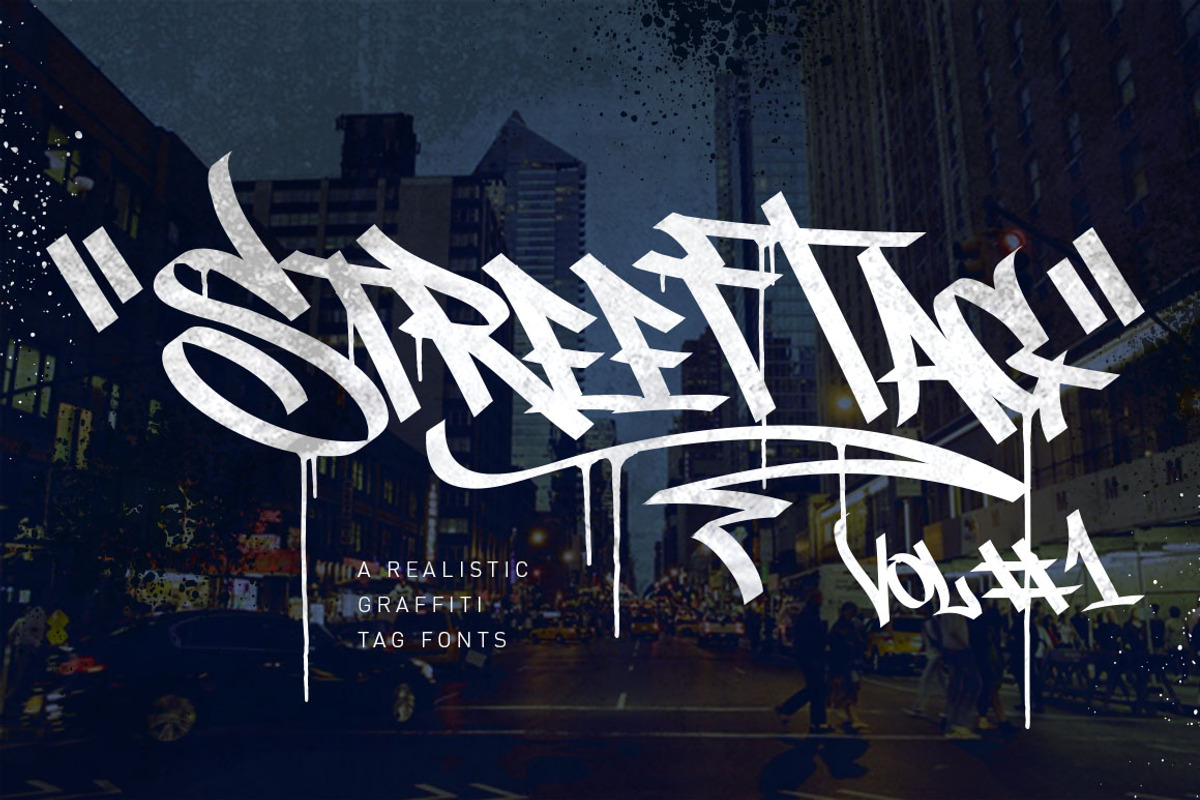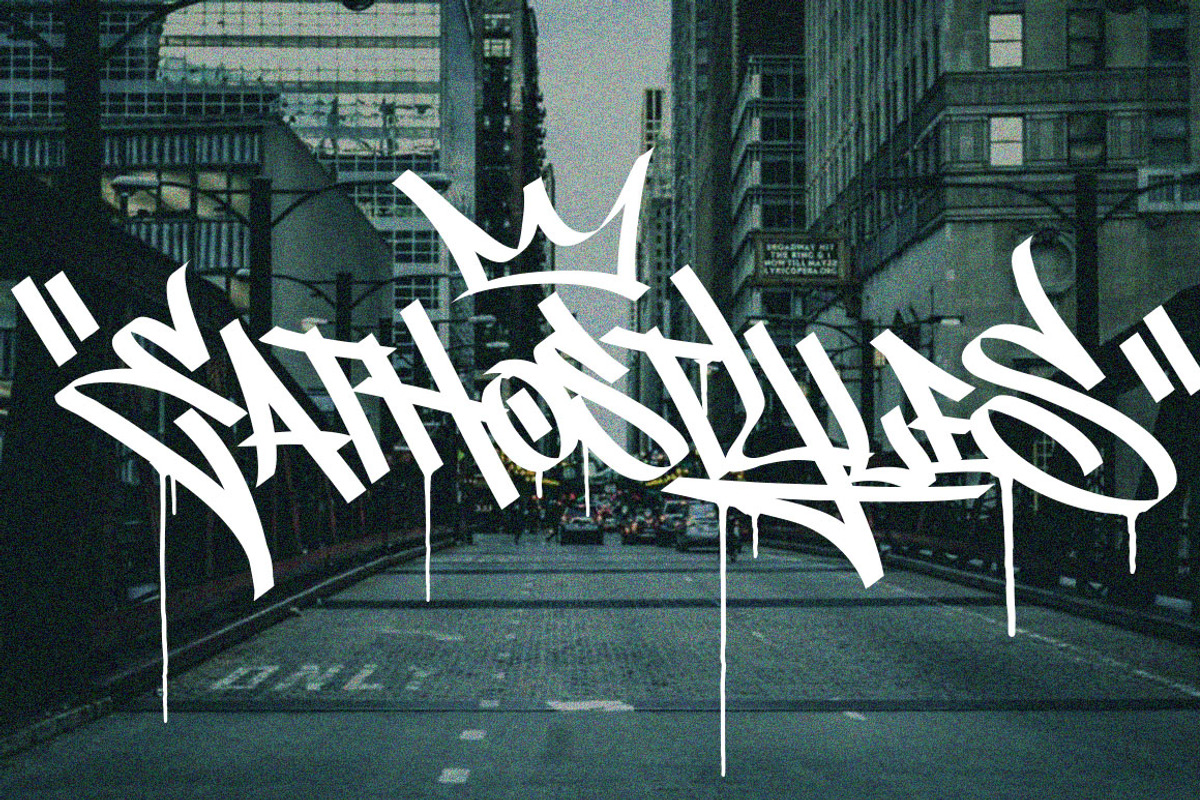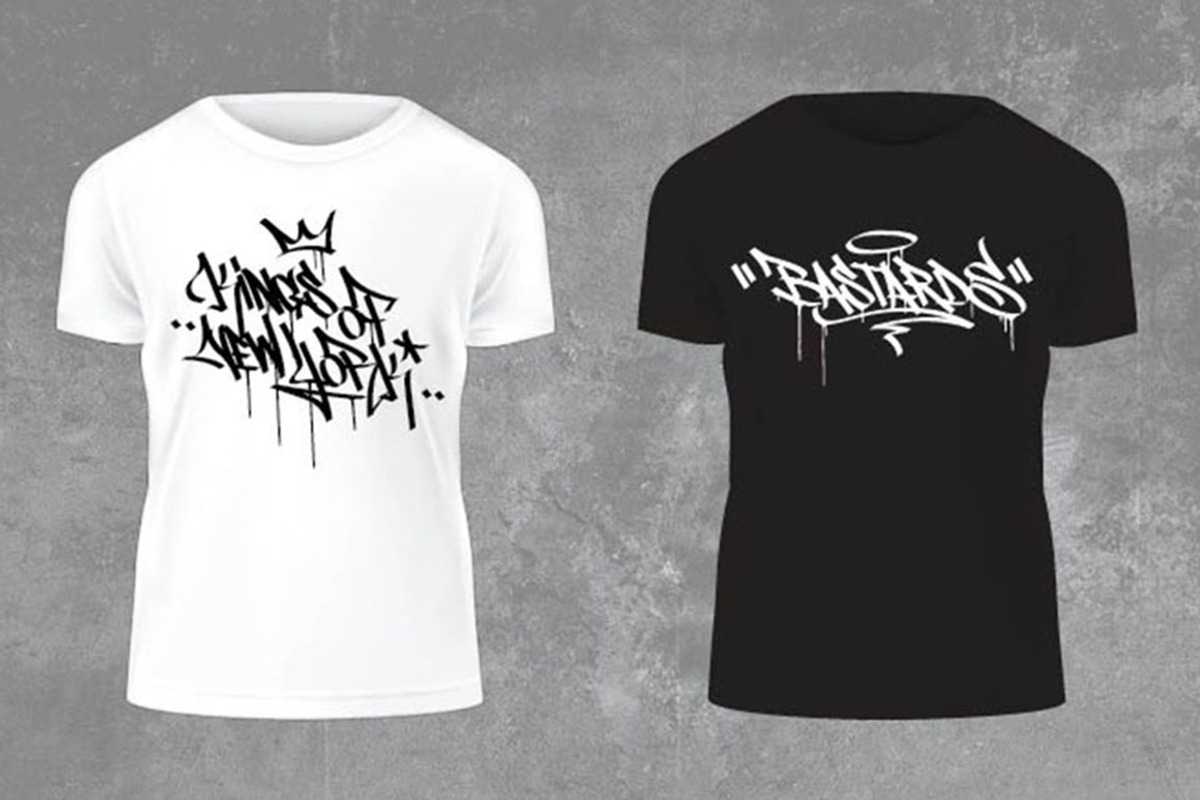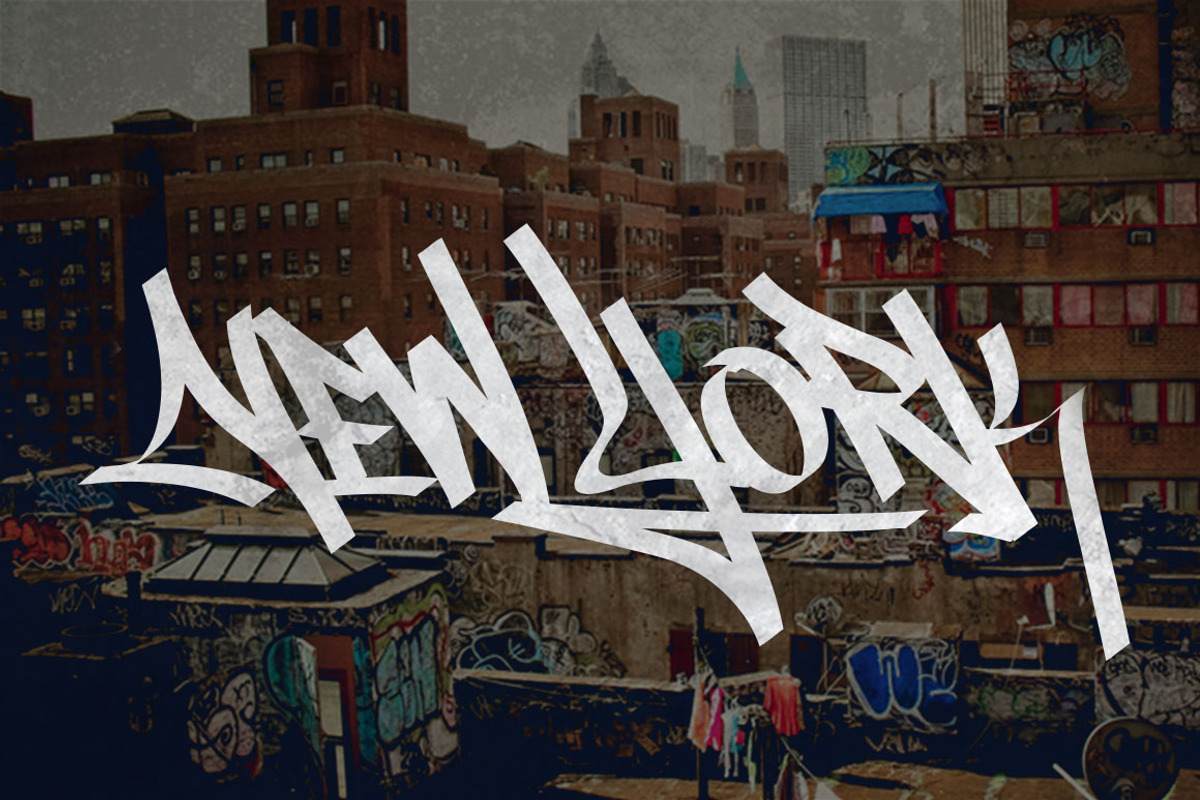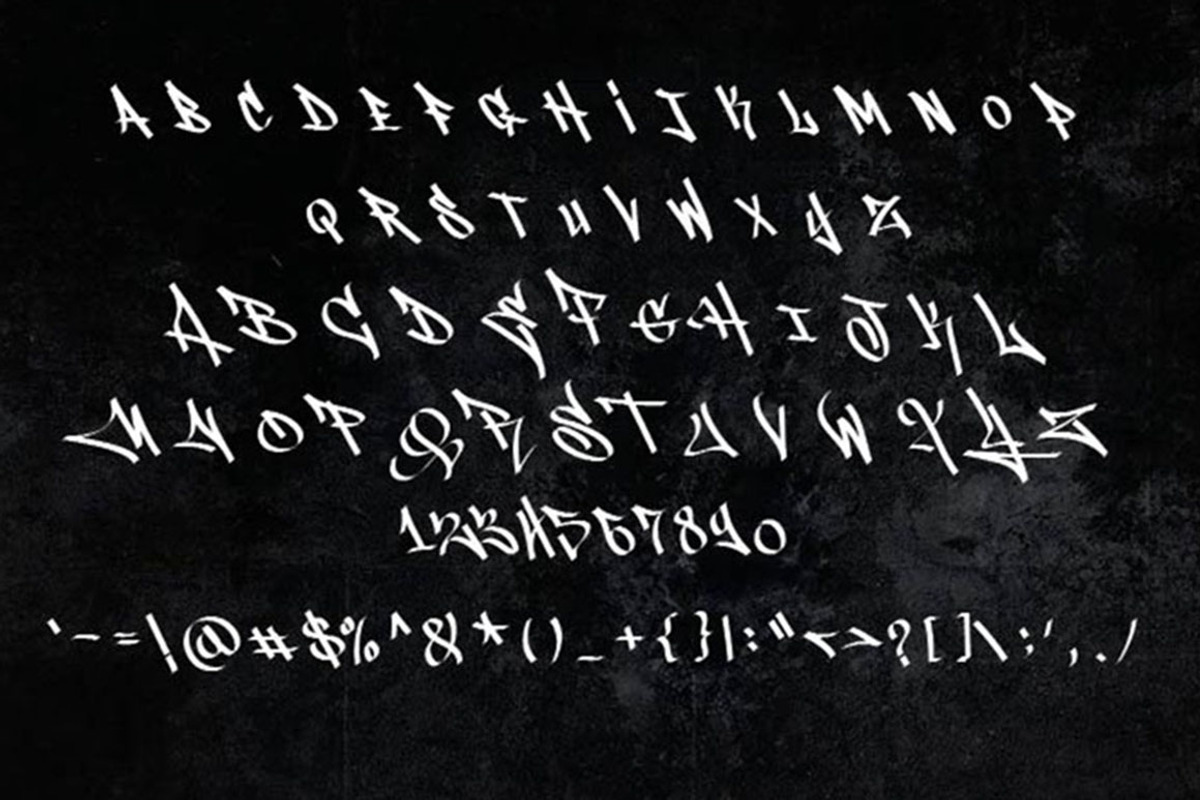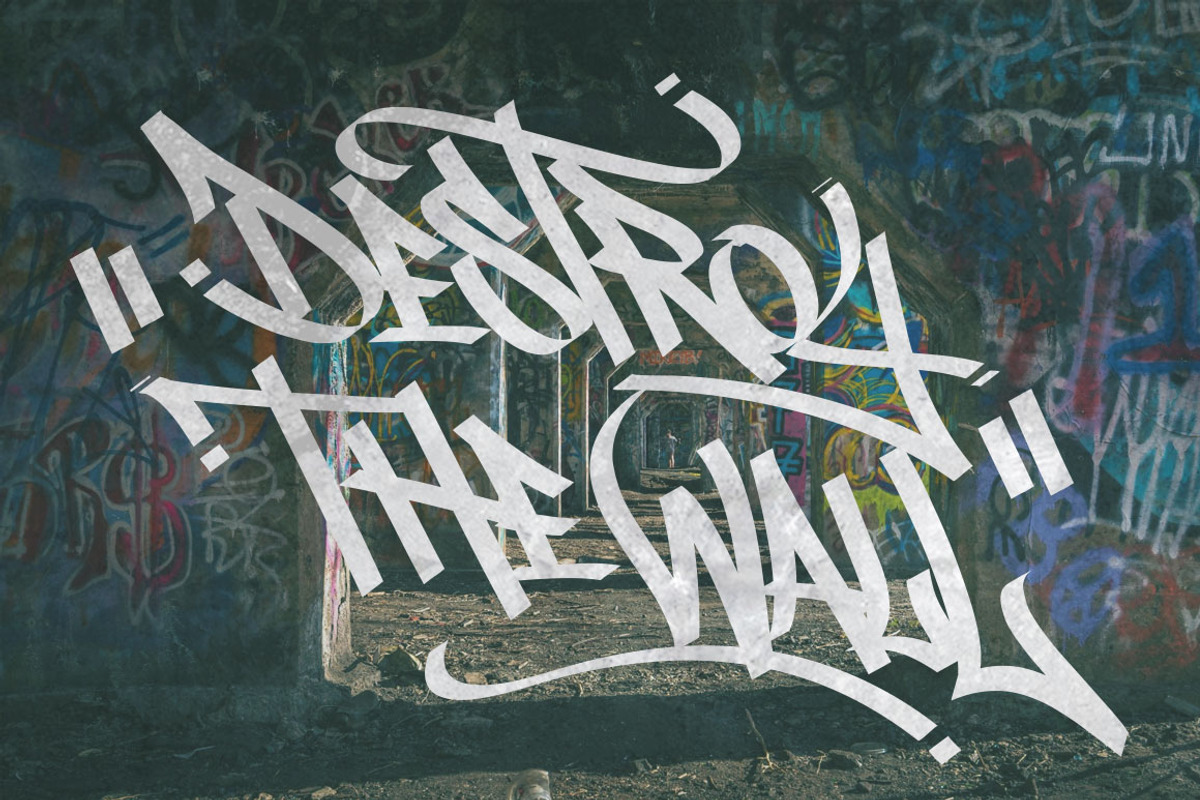
Graffiti Inspired | Street Tag Vol1
Street Tag vol1 is inspired from graffiti tag in urban areas in Jakarta, i also draw graffiti, tag and throw up since high school. This is originally my style, inspired from some my favourite graffiti artist, my tag style is not so tidy and i think you guys should adjust the kerning manually again, because it’s impossible to adjust them to be tidy.
You’ll also get some bonus here in vector format, you’ll get outlined typeface, special character (drips, line, another tag symbol etc) and Hip hop poster design bonus, i also create special letter "G",“Y” and “T” in vector base, so you can edit the path as you like, combine with the original font, you can see the sample.
The style and design itself is on the spot and perfect for a grafitti designproject. The craftsmanship of the vector work is unfortunately not good. There are a lot of loose anchor points, small points and errors in all the letters. I needed the font for a book project and had to clean up all letters from scratch and make all the words manually instead of writing them. The vector work is simply not good enough, and not at all for display work. This product is not worth the money before the maker clean it up.
I'm sorry.. i don't get whats your points, because before the vector become fonts i need to tidy up them. Please don't compare this to regular fonts, i created this with freehand so i also need this font to be "grunge" little bit, the kerning and spacing also closer, just like the tagging graffiti in real life.